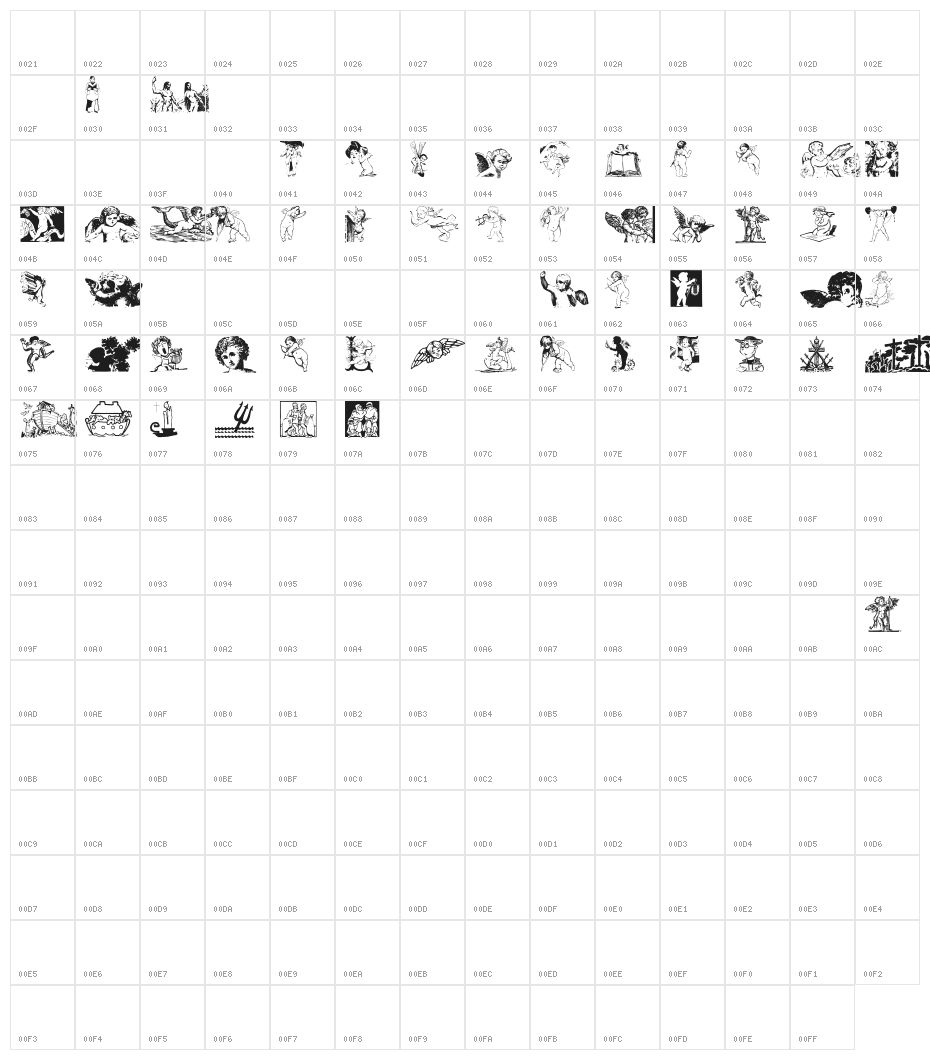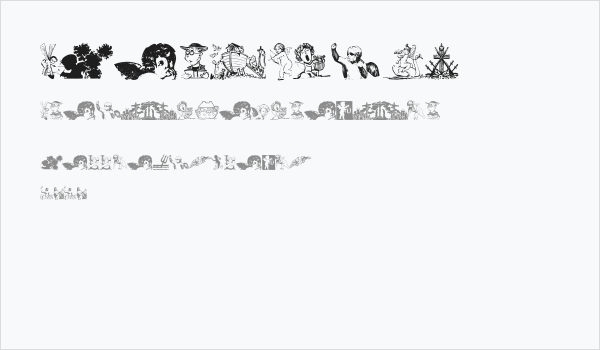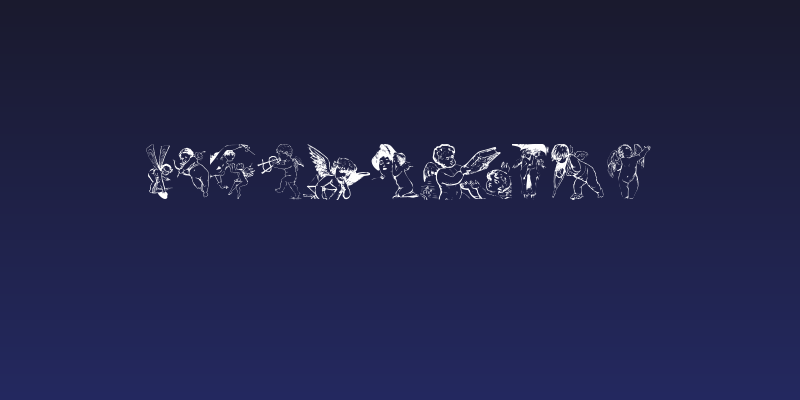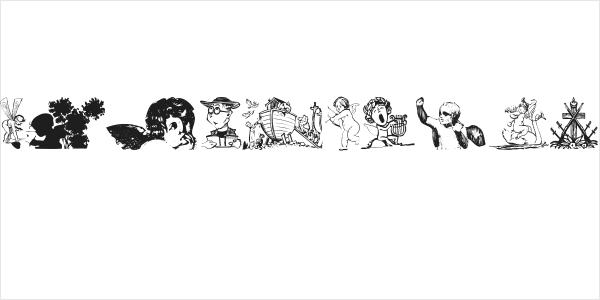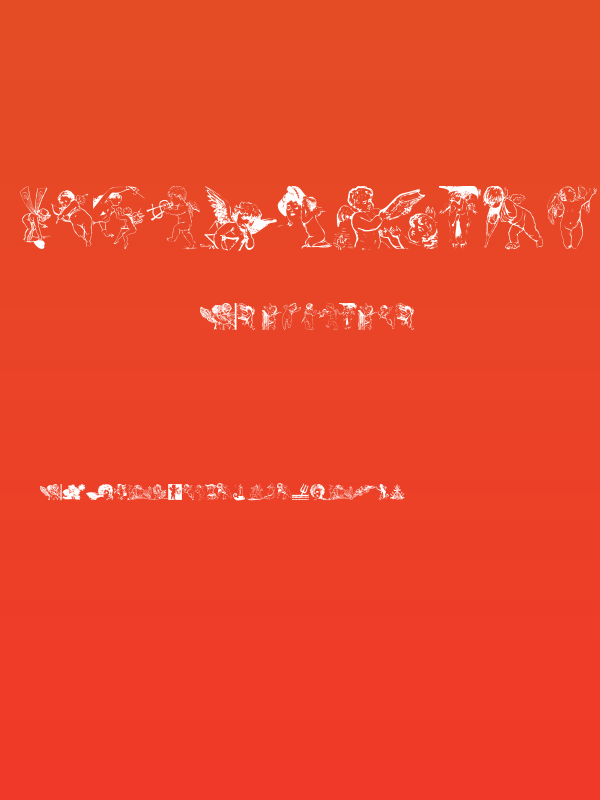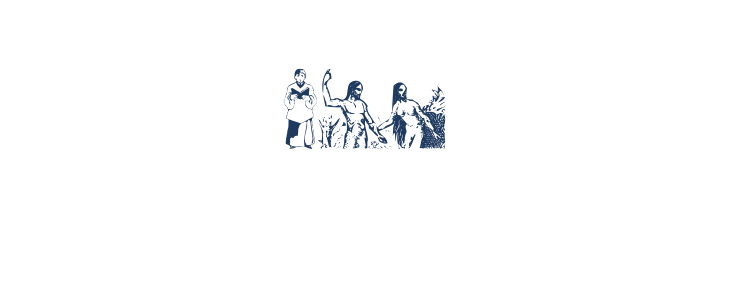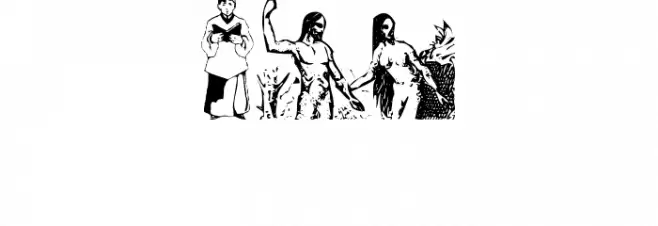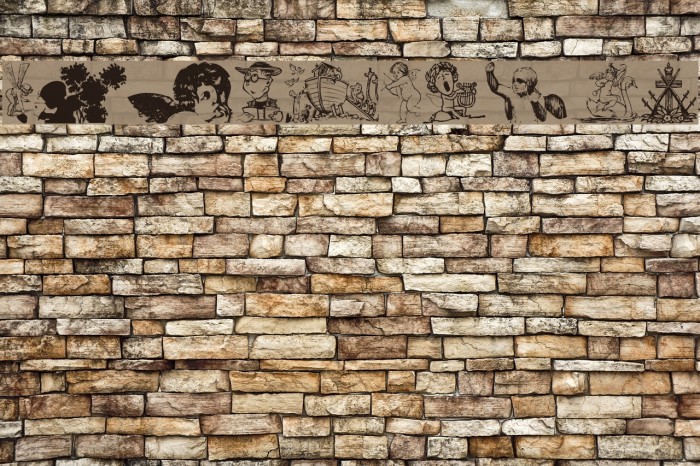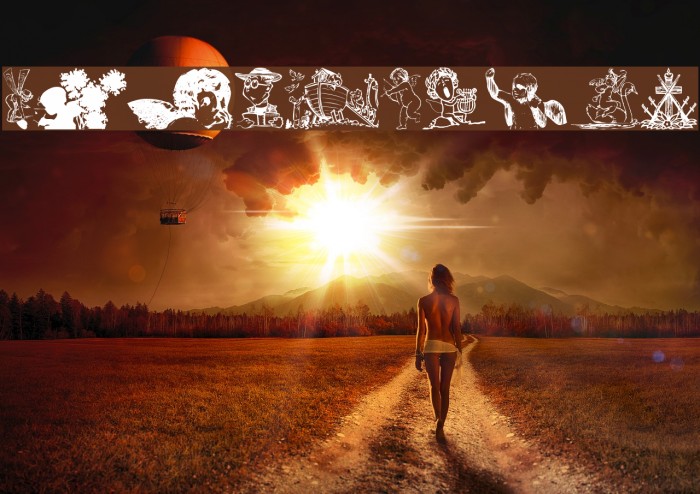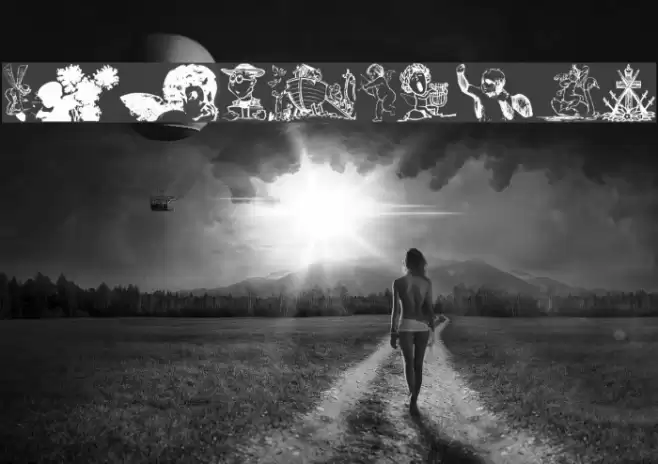
Cherubians Font
Cherubians Description
A decorative dingbat set featuring detailed illustrations of cherubs, angels, and religious-themed figures and objects, rendered in a vintage, engraved style with high contrast and intricate line work.
| Overall Style | Vintage, Decorative |
| Use Case | Ornamental accents, thematic dividers, illustrative elements. |
| Proposed Projects | Invitations, greeting cards, religious publications, decorative borders, scrapbooking, vintage-themed designs. |